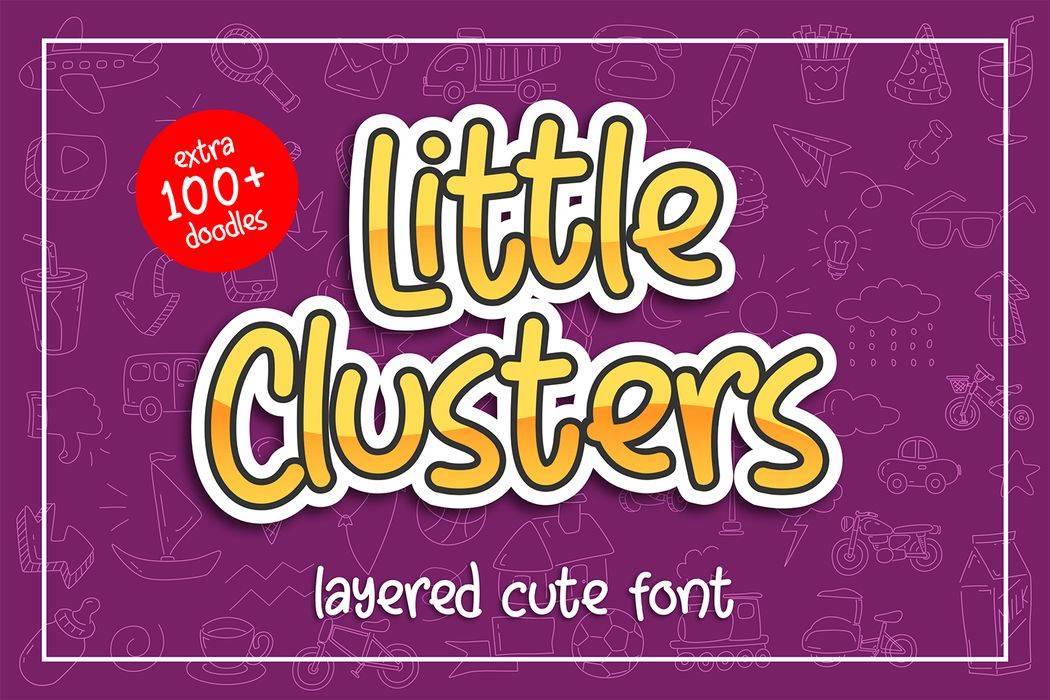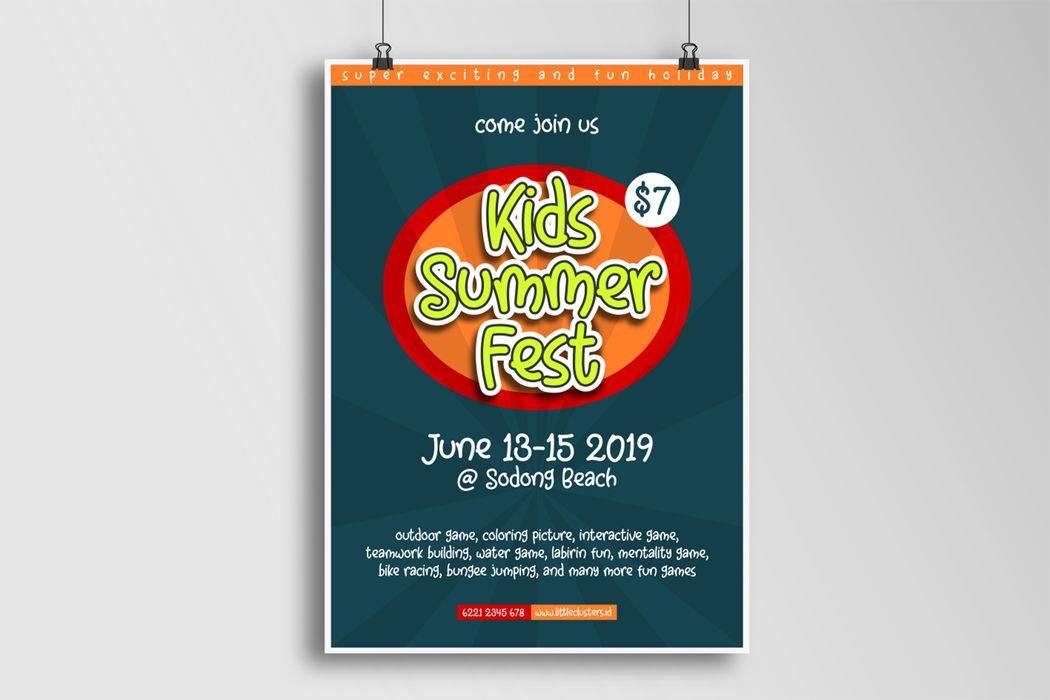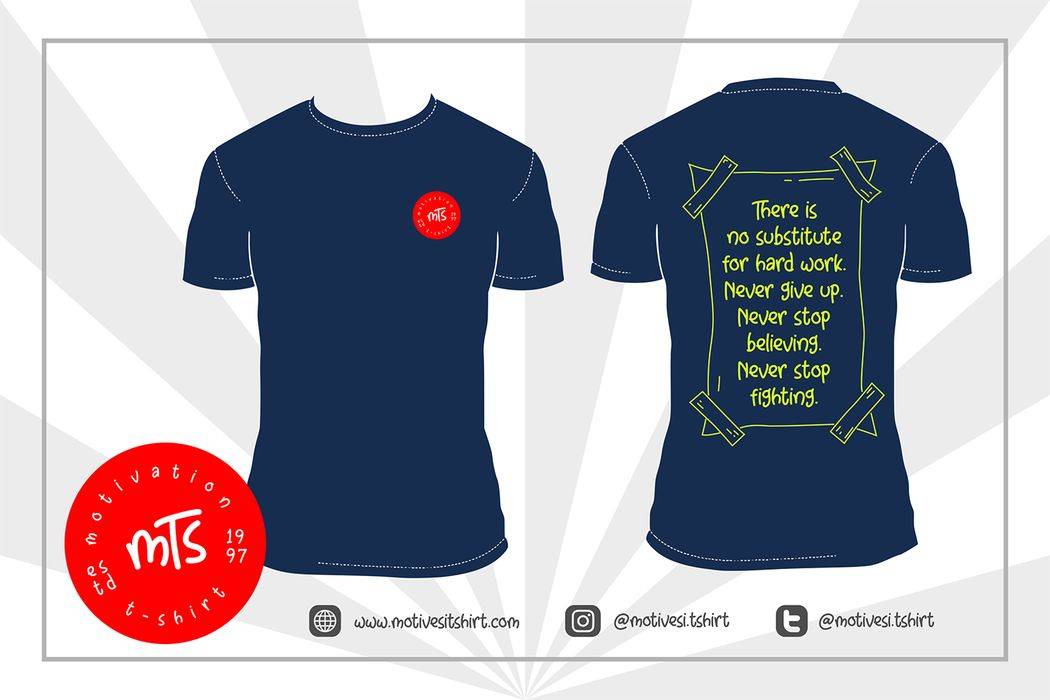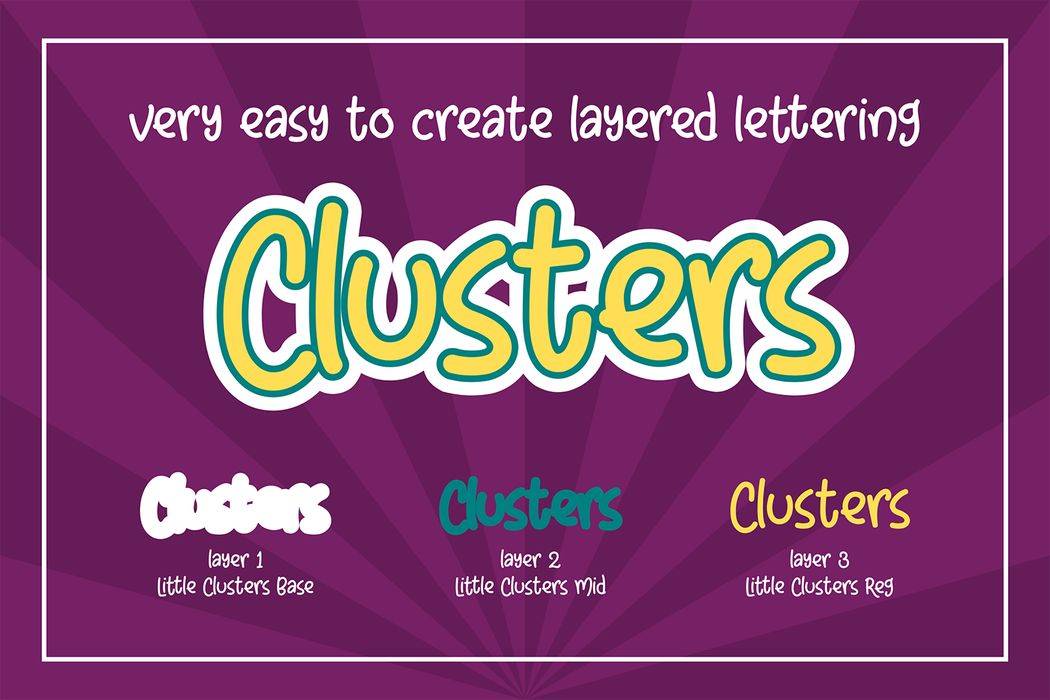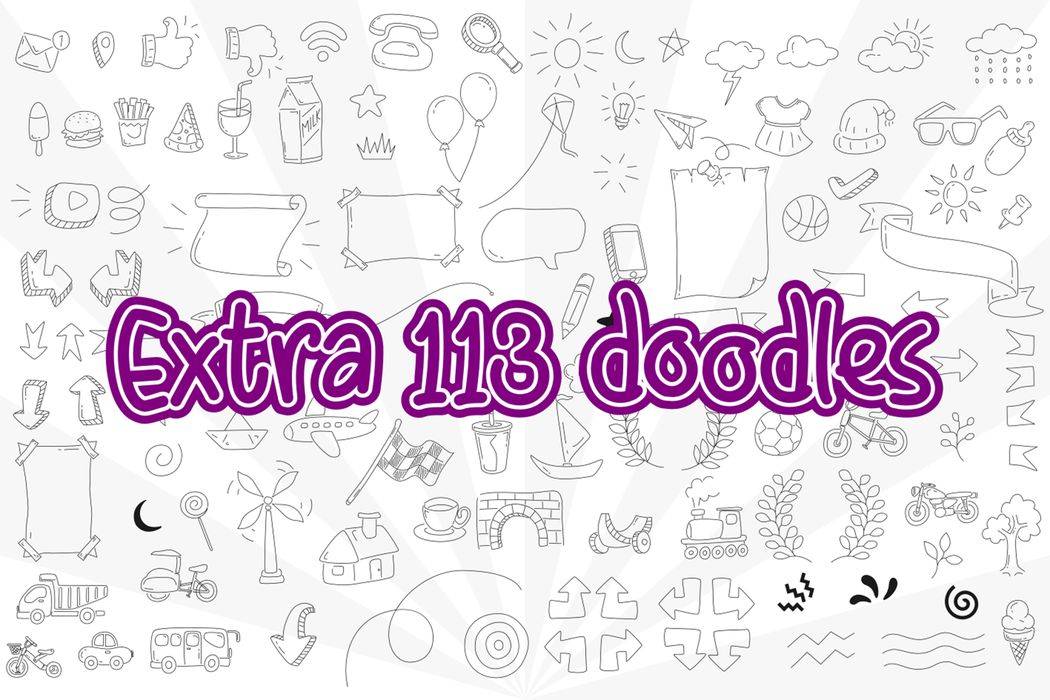
Little Clusters is a playful, handwritten sans serif font with a casual and friendly feel. Its rounded, slightly irregular letterforms and medium weight create an approachable and informal style, perfect for adding a personal touch to creative projects, children's materials, or branding that wants to convey warmth and fun. This font works well in headlines, logos, and packaging where a whimsical, down-to-earth vibe is desired.
| Font family | Little Clusters Font |
| Designer | Abo Daniel 2019 |